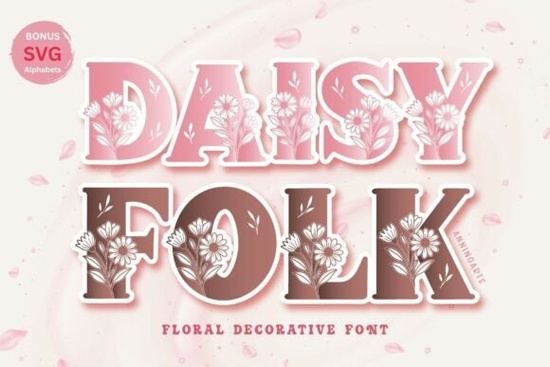
If you've been looking for a decorative font that feels fresh, floral, and handmade, the Daisyfolk Font is worth a close look. It's an all-caps typeface filled with tiny daisy illustrations woven into each letter, giving your text a romantic, natural feel without extra effort. Whether you design wedding invitations, spring greeting cards, or boho-themed print-on-demand products, this font brings a soft botanical charm that's hard to replicate with standard typefaces.
What Can You Make With a Floral Decorative Font?
The all-caps design keeps everything looking balanced and bold, which is useful when you need text to read clearly at smaller sizes on physical products.
Daisyfolk fills a specific gap it's soft, feminine, and nature-inspired. It won't work for every project, but for the ones where a botanical floral tone is exactly right, it really shines.
- Plan your sizing – Decorative fonts like this look best at larger sizes where the floral details can breathe.
- Pair it wisely – Use a simple sans-serif or script font for body text so the Daisyfolk lettering stands out as your headline or accent font.